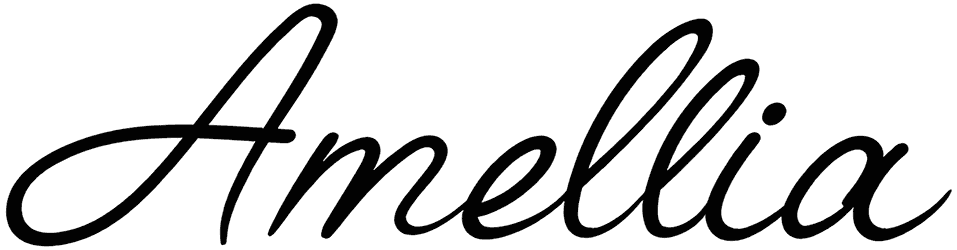
Amellia Font
Amellia font has connected characters and clean swashes and is helpful in many different applications. For example, you can use it on the cover of fashion magazines, packaging of cosmetic brands, and also on invitation cards for luxury events. Consider using Amellia, this chic cursive font for pointing out in many graphical displays.